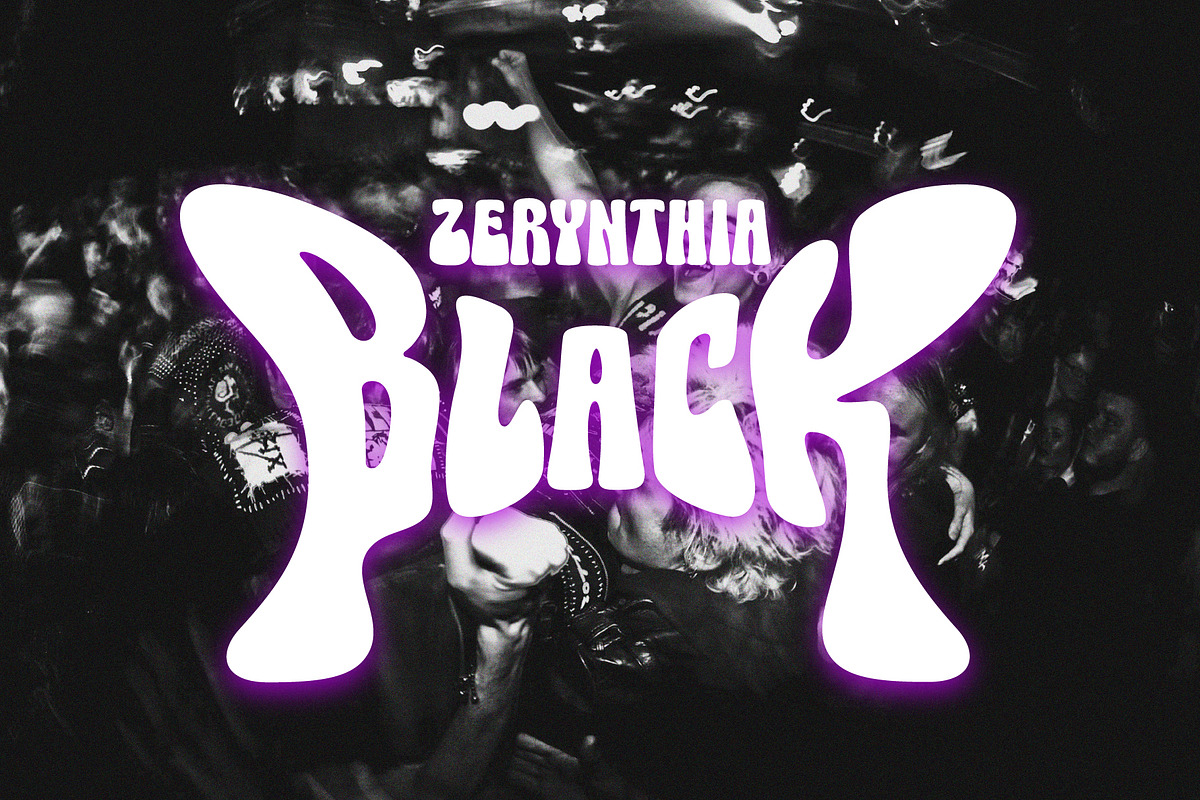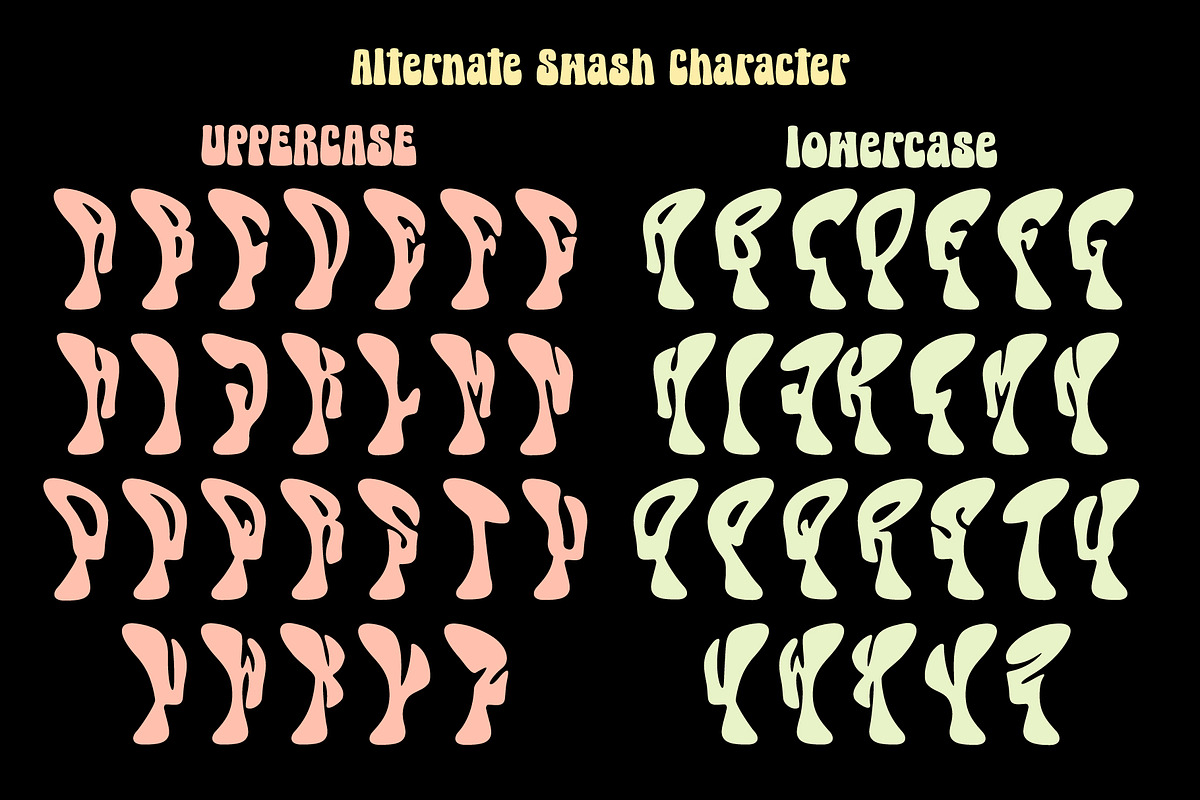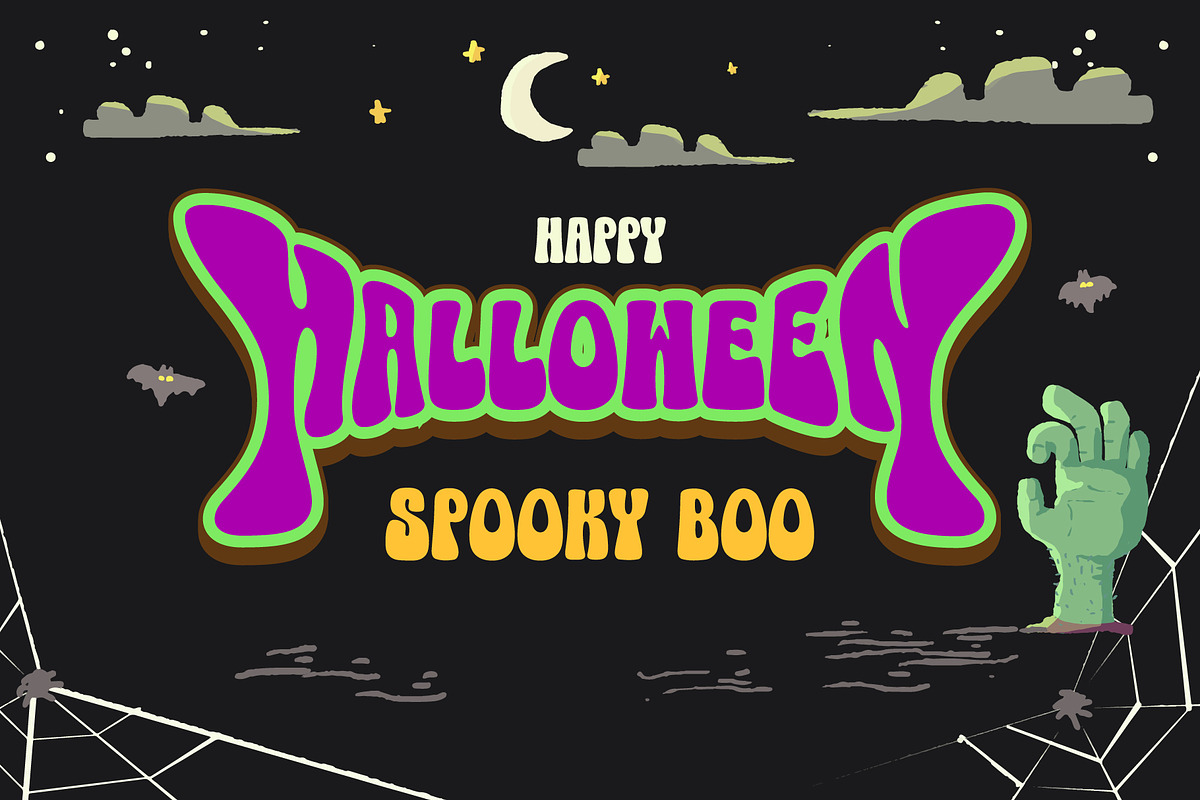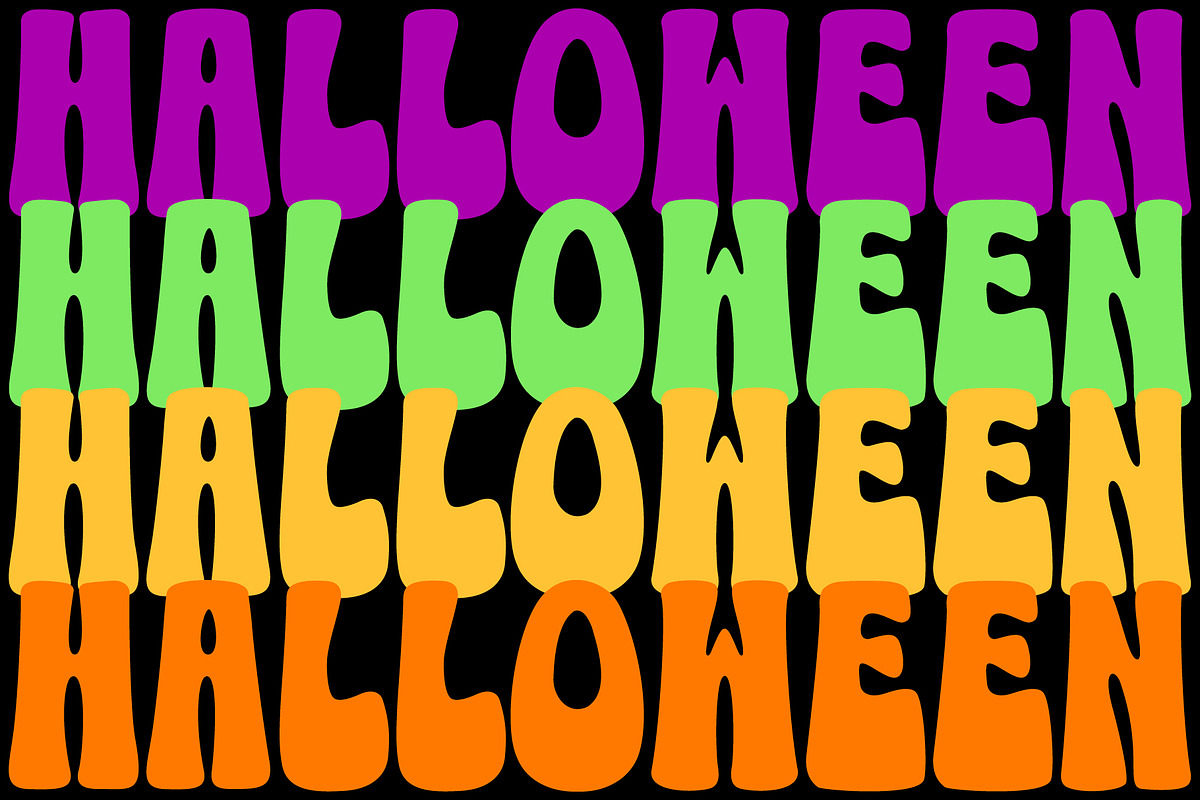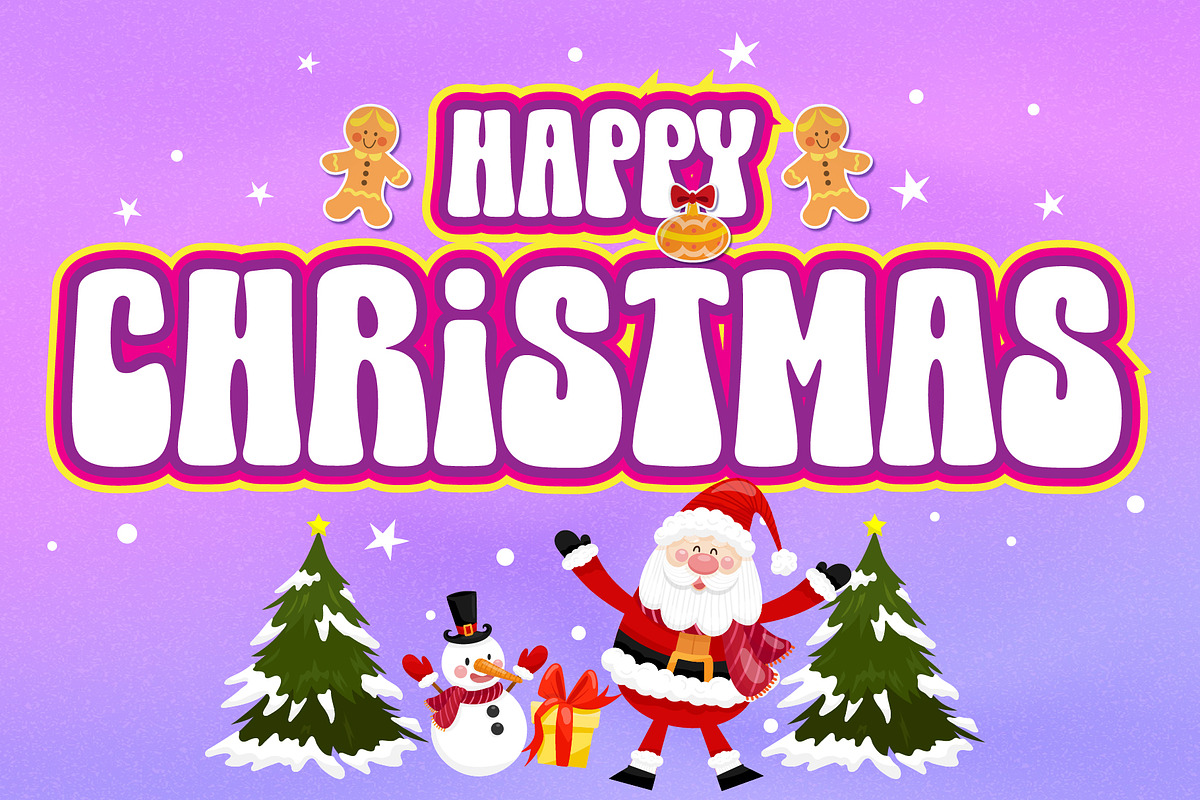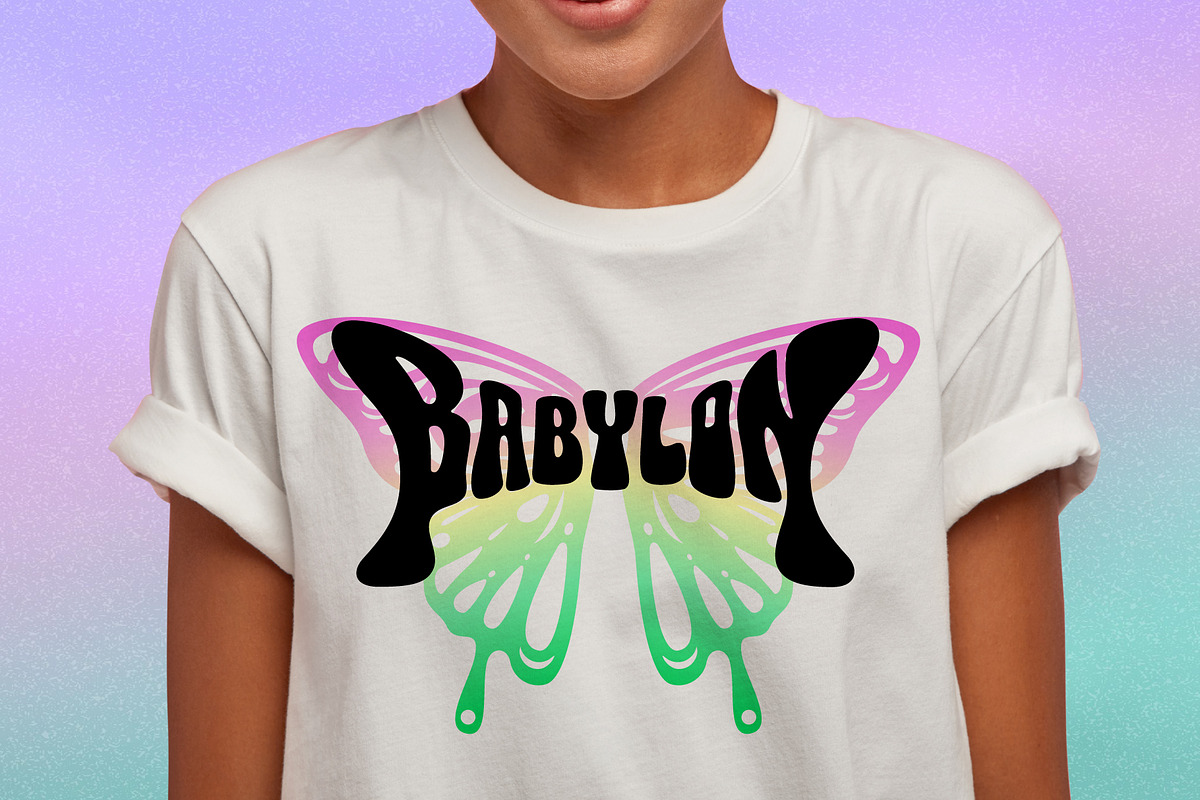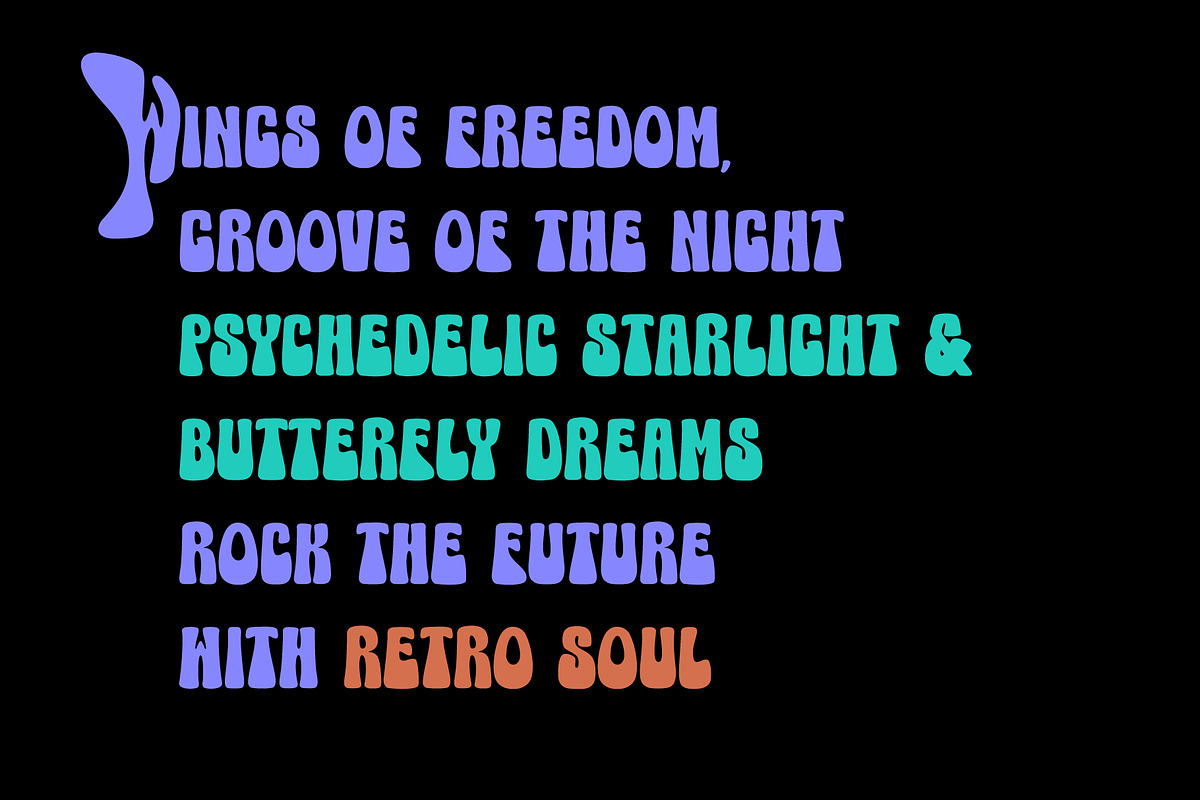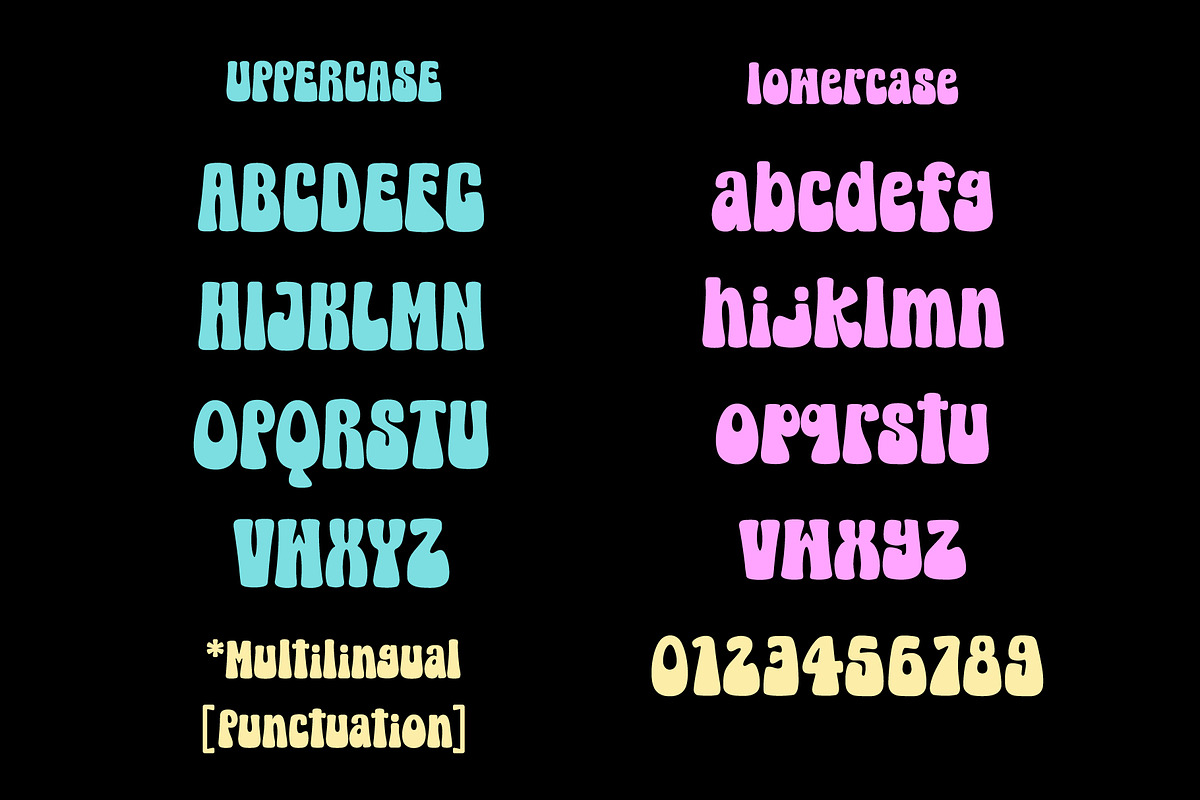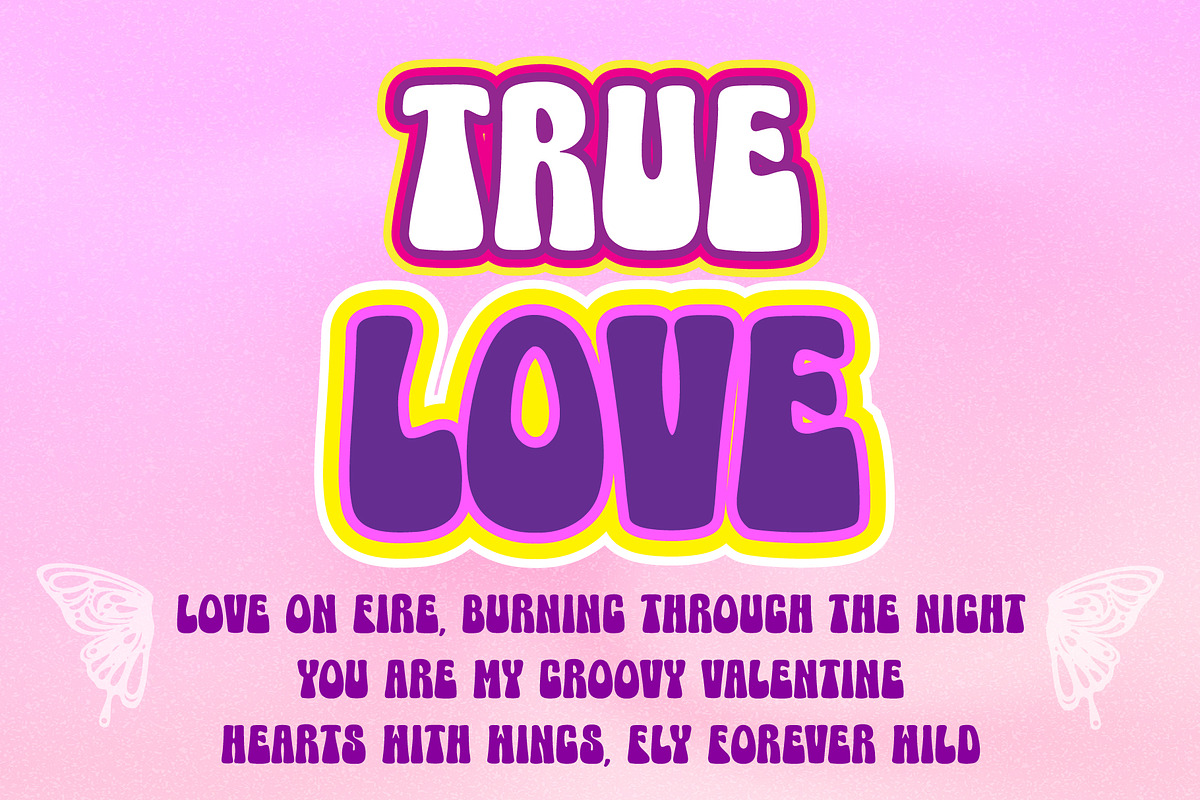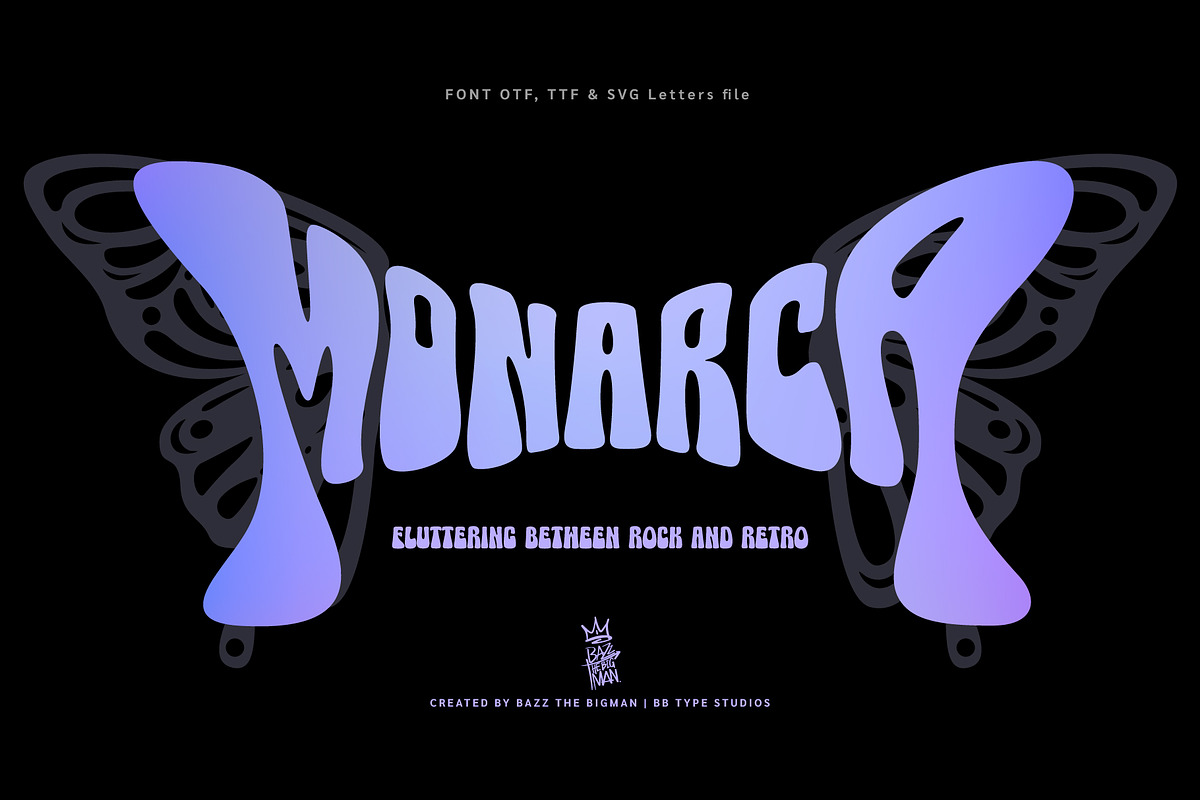
Monarca
Dive into a retro-inspired aesthetic with Monarca, a bold and groovy display font. Drawing inspiration from the delicate patterns of butterfly wings, the iconic appeal of rock band logos, and the swirling influence of the psychedelic 70s, Monarca is a typeface that truly stands out. Ideal for festival posters, album covers, vibrant branding, and eye-catching t-shirts, this font adds a distinctive touch to any creative project craving a bold retro vibe. With PUA encoding included, all special characters and decorative elements are easily accessible without additional software.